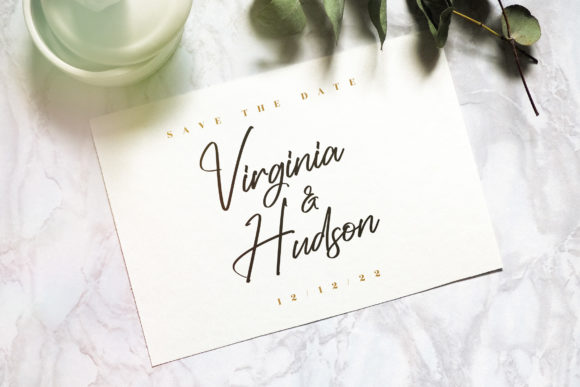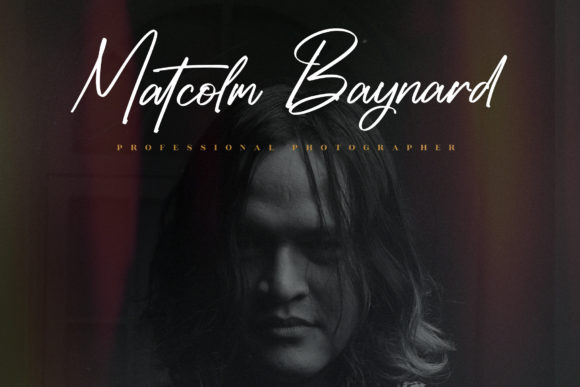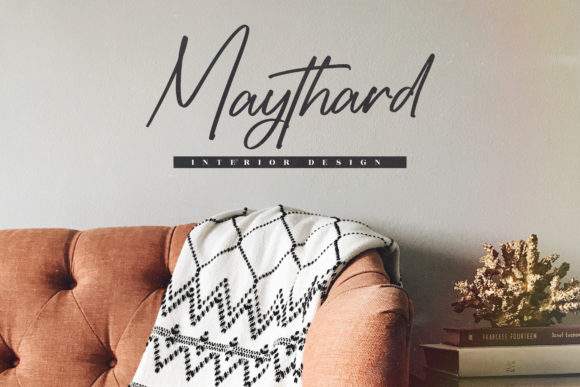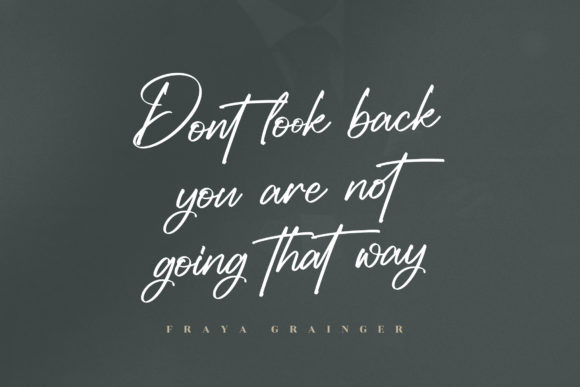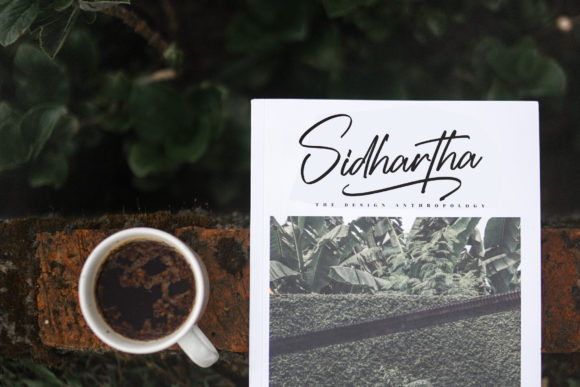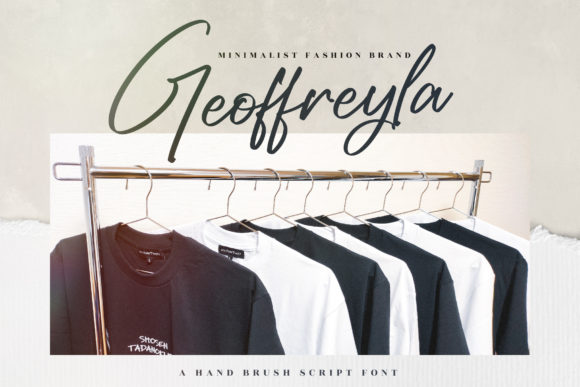
The Designer’s Delight: Gentry Benedict Font
I’ll never forget the time I was working on a branding project for a luxury wedding planner. My client wanted a font that exuded elegance, sophistication, and romance. I scoured the internet, tried out countless fonts, but nothing seemed quite right. That was until I stumbled upon the Gentry Benedict font. ✨ It was love at first sight! The neatly crafted and highly detailed script font instantly captured the essence of what my client was looking for.
- ✅ Highly Detailed: The font is meticulously crafted, with beautiful swashes and flourishes that add a touch of luxury to any design.
- 💫 Versatile: Gentry Benedict is perfect for a wide range of design projects, from wedding invitations to branding and packaging.
While Gentry Benedict is an exceptional font, there are a few things to keep in mind: ⚠️
The story behind Gentry Benedict is one of passion and dedication. According to the font’s creators, the inspiration for Gentry Benedict came from a desire to create a font that captured the essence of luxury and sophistication. The designers spent countless hours perfecting the font, pouring over every detail to ensure that it was nothing short of exceptional.
| Font Name | Gentry Benedict Font |
| Author | Glorytype Studio |
| Is Gentry Benedict suitable for body text? | While Gentry Benedict is an exceptional font, it’s best suited for display text or headings. Its elegant, script style may not be the best choice for body text, which requires a more straightforward, easy-to-read font. |